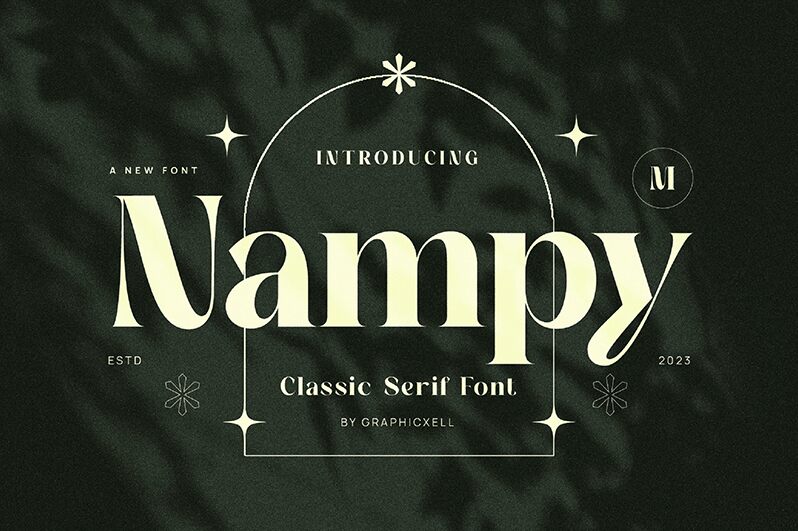
Nampy font by Graphicxell is a free serif font exuding a classic and elegant aesthetic. It embodies sophistication with its ornamental features, creating a timeless and refined look. Inspired by vintage typography, this font brings a professional and versatile style to any project, offering a stylish edge for various design needs.
Perfect for use in branding, editorial work, advertising, packaging, website design, and invitations, Nampy shines in professional and creative fields alike. It is also well-suited for posters, titles, logos, business cards, and book covers.